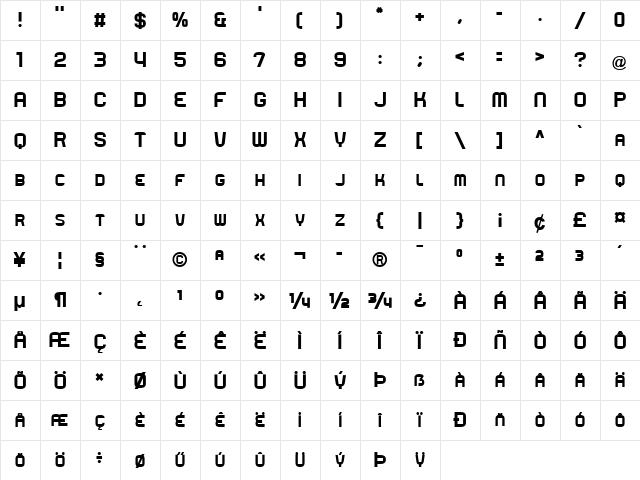
Rueck Regular
| Foundry | Peter Wiegel |
| Designer | Peter Wiegel |
Design Context for Rueck Typeface
Rueck offers clean, dependable letterforms without strong stylistic allegiance, making it a practical choice for designers who need flexibility.